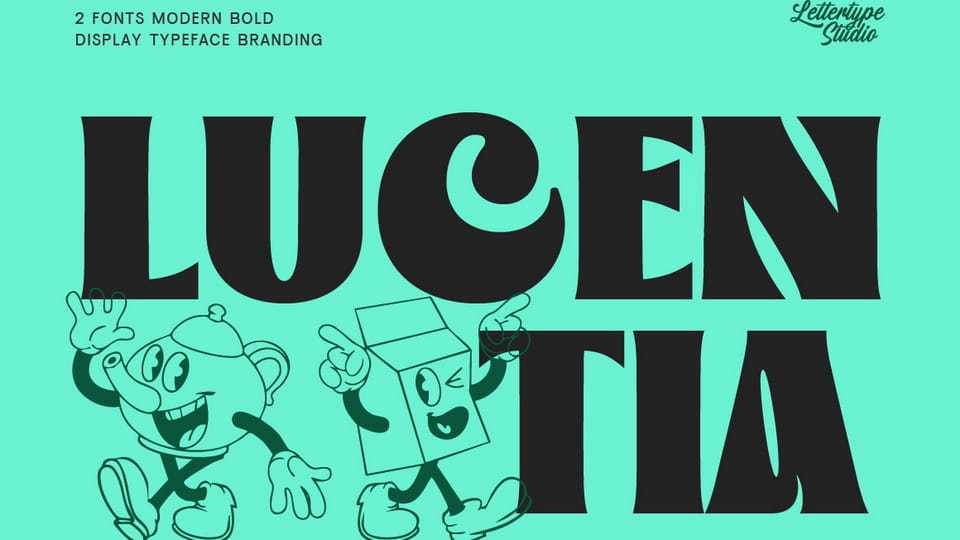
Download Lucentia font, a modern bold display typeface designed to deliver strong visual presence with refined clarity. Built for contemporary branding needs, Lucentia balances bold proportions with clean geometry,